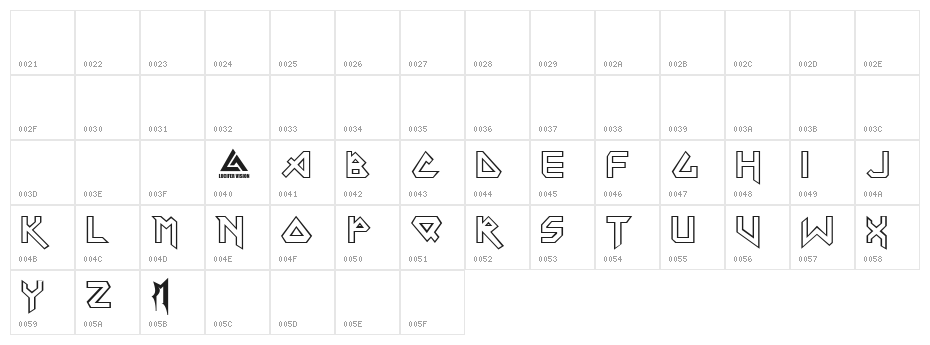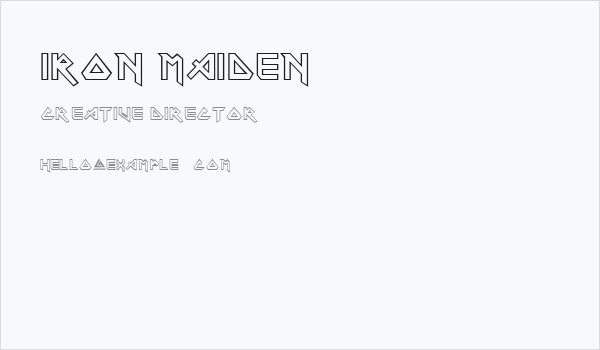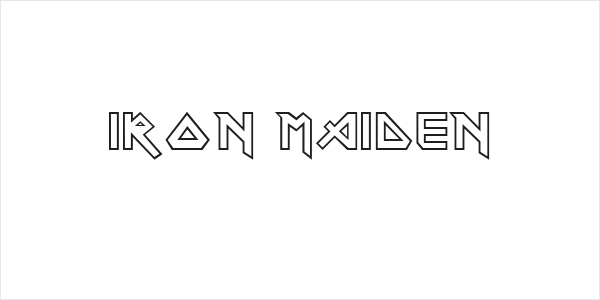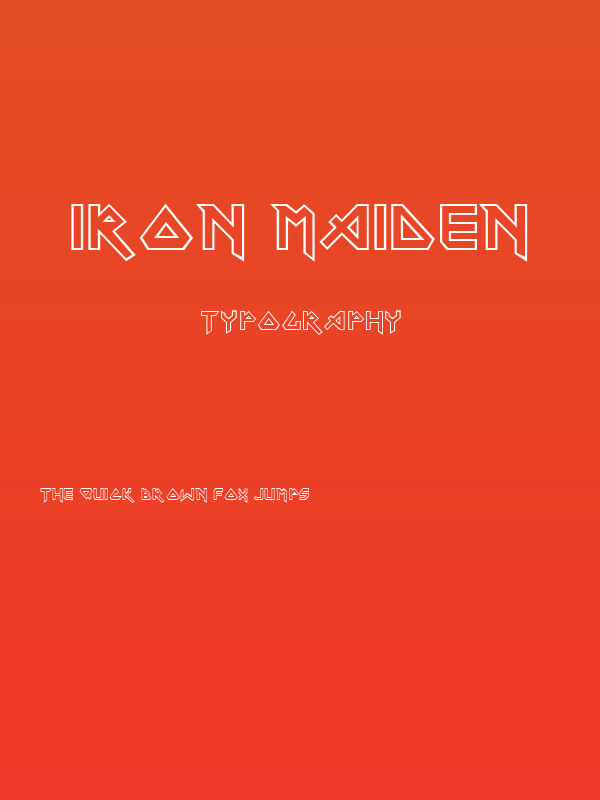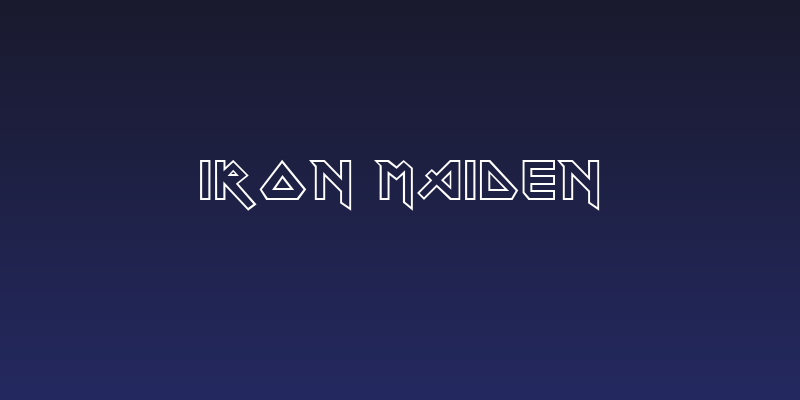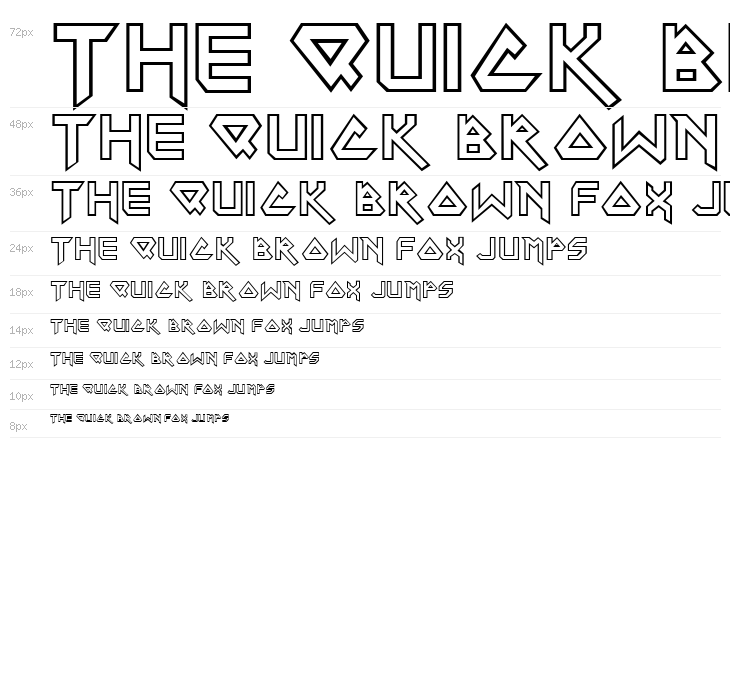
Iron Maiden Font
Iron Maiden Description
This font features a bold, angular design with sharp edges and a geometric style reminiscent of heavy metal aesthetics. The characters are outlined, creating a striking visual impact that is both aggressive and dynamic. Each letter is crafted with precision, maintaining a consistent height and width, which contributes to a uniform appearance. The font's unique style draws inspiration from gothic and industrial themes, making it ideal for projects that require a strong, edgy look. Its distinct personality is perfect for capturing attention and conveying a sense of power and intensity.
Use CaseLogos, Headlines
Proposed ProjectsIdeal for band logos, album covers, posters, and merchandise related to rock or metal music.